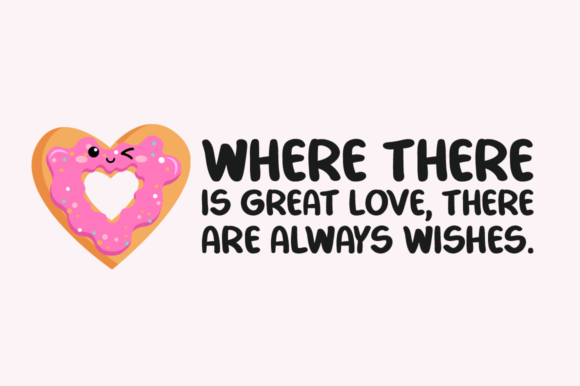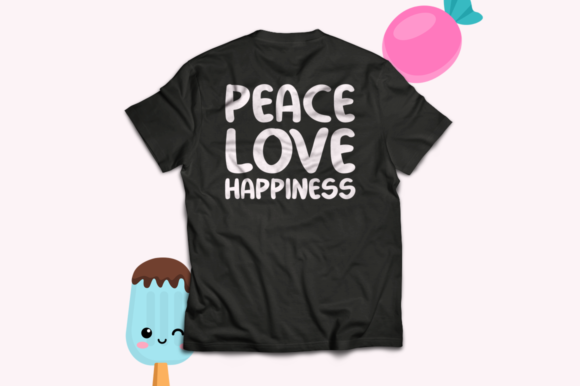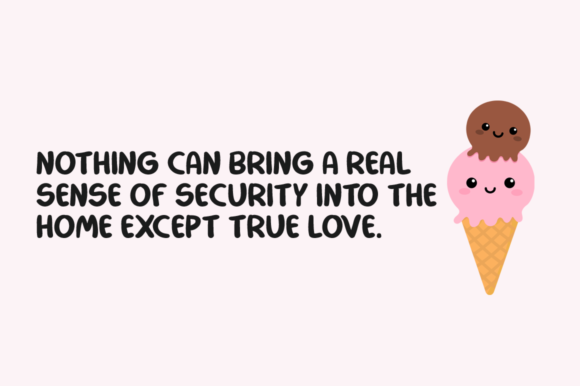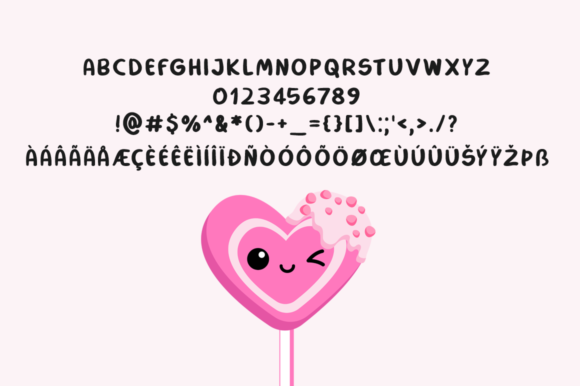
Love Taking Font
About Love Taking Font
Love Taking is a bold and fun handwritten font that brings a fresh and lively vibe to your designs. With its unique and timeless style, this font is sure to make a bold statement and captivate your audience.
The bold letterforms of Love Taking exude confidence and energy, making it a great choice for projects that call for a vibrant and playful touch. Whether you’re designing posters, creating logos, or crafting social media graphics, Love Taking adds a dynamic and eye-catching element that grabs attention.
The completely different and timeless style of Love Taking sets it apart from other fonts, giving your designs a distinctive and memorable look. The letterforms are crafted with care and attention to detail, resulting in a font that is both visually appealing and highly legible.
One of the key strengths of Love Taking is its versatility. It can be used in a variety of design projects, from bold branding to cheerful event invitations. The font adapts effortlessly to different design styles and themes, making it a versatile choice for any creative endeavor.
The fun and bold nature of Love Taking’s letterforms bring a sense of excitement and joy to your designs. Each character has its own unique flair, adding personality and character to your typography. This font encourages creativity and allows you to infuse your designs with a sense of playfulness and enthusiasm.
Whether you’re designing for print or digital media, Love Taking stands out with its bold and fun style. Its thick strokes and lively curves make it suitable for attention-grabbing headlines or as a focal point in your design compositions. It can also be paired with other typefaces to create interesting contrasts and harmonious combinations.
Love Taking’s bold and fun design doesn’t compromise readability. The clarity of the letterforms ensures that your message is effectively communicated, even in bold and expressive typography. It is a font that is meant to catch the eye and leave a lasting impression.
In summary, Love Taking is a bold and fun handwritten font that brings a fresh and lively vibe to your designs. Its unique and timeless style sets it apart and allows you to create spectacular and attention-grabbing designs. Whether you’re designing logos, posters, or other creative projects, Love Taking adds a touch of excitement and personality that makes your designs truly stand out.